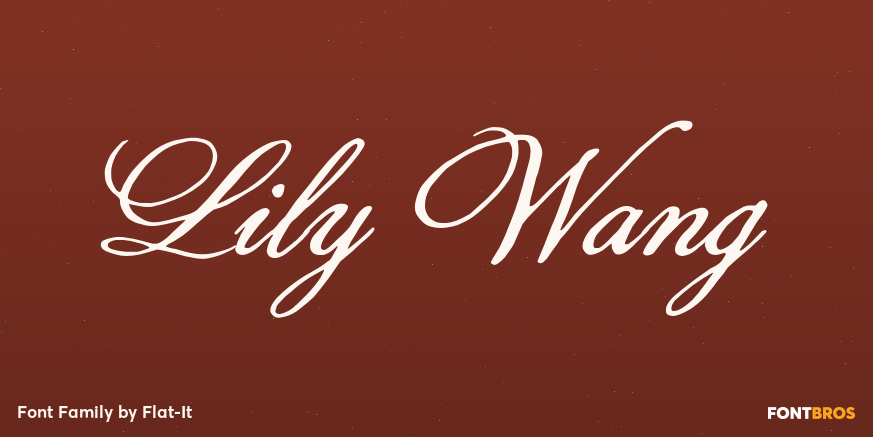
HomeFont BrosDistressedLily Wang DistressedHistoricalScripts: CasualScripts: FormalHandwritten Lily Wang FacebookXPinterestWhatsApp 1 of 1 About Lily Wang Based on Hongkong ladies? script in the 19th century. Inky texture gives realistic handwriting appearance.  DOWNLOAD ON FONT BROSThis font is sold and delivered by Font Bros. Font Canyon may earn a commission if you buy through this link. People also explored Wanengu Font Jesaya Lopher Font Waring Tons Font Hachimitsu Hand Drawn Ink Lines Font Dragonfly Font Venetian Old Signboard Mockup Amalia Font 437 0 TagsLily Wang Font Previous articleGalderglynn EsquireNext articleRoller World BTN LEAVE A REPLY Cancel reply Comment: Please enter your comment! Name:* Please enter your name here Email:* You have entered an incorrect email address! Please enter your email address here Website: Save my name, email, and website in this browser for the next time I comment. Personal Use Free Vogue Font Personal Use Free Read more about this font Boston Traffic Personal Use Free Read more about this font Burgie Personal Use Free Read more about this font Xplor Personal Use Free Read more about this font BLOG Top 7 Google Fonts Alternatives for Faster and Privacy-Friendly Web Design (2025) Top 7 Google Fonts Alternatives for Faster and Privacy-Friendly Web Design (2025) When it comes to web typography, Google Fonts has long been the go-to... To increase your work productivity, choose the most readable fonts. How to Install and Use Fonts on Windows, macOS, and Web Projects Modern Sans-Serif Fonts That Brands Love in 2025